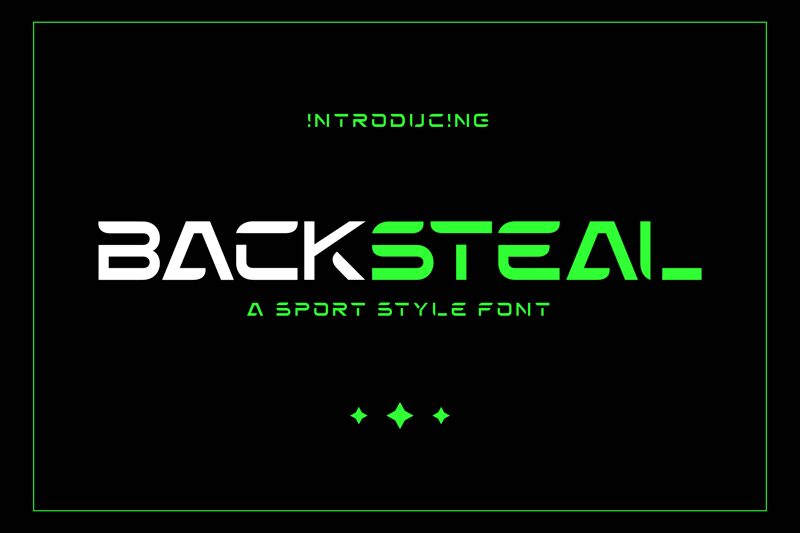
Meet Backsteal, the dynamic display font designed by Ahwe Project. With its futuristic and sporty style, this font is perfect for projects that aim to captivate and energize the audience.
Backsteal's extra-expanded width adds a bold and impactful touch to any design, making it ideal for sports logos, high-tech websites, video game titles, and futuristic branding campaigns. Whether you're looking to create an edgy poster or a cutting-edge website, Backsteal is the font that will steal the show with its unique blend of modernity and athleticism.